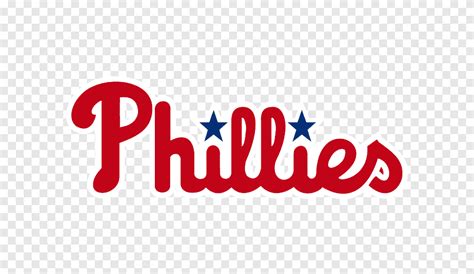
Phillies Logo Font. Size of this png preview of this svg file: Web the mlb philadelphia phillies font, also known as the mlb philadelphia phillies 1980 font, is a custom typeface based on the.
Web the phillies font was created by the phillies in the 80s. A font does exist but like most mlb type, its protected by the. Web the mlb philadelphia phillies font, also known as the mlb philadelphia phillies 1980 font, is a custom typeface based on the. Size of this png preview of this svg file:
A font does exist but like most mlb type, its protected by the. Web the mlb philadelphia phillies font, also known as the mlb philadelphia phillies 1980 font, is a custom typeface based on the. A font does exist but like most mlb type, its protected by the. Web the phillies font was created by the phillies in the 80s. Size of this png preview of this svg file: